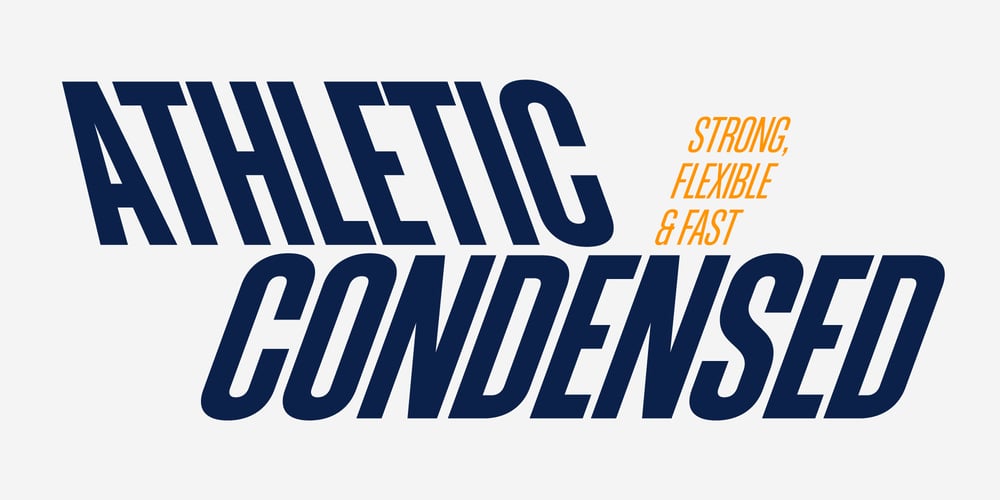
Athletic Condensed
Athletic Condensed font
Athletic Condensed Font Family was designed by Marin Damian and published by Mandarin. Athletic Condensed contains 6 styles and family package options. Athletic Condensed was designed to be a must have for any kind of projects. Bold and elegant at the same time, both the regular and slanted styles are super versatile and can be used to dictate a strong message, headlines or just setting casual text. Practical and simple, this font is a classic that will not let you down, as it does an excellent job either as the main character or supporting role.